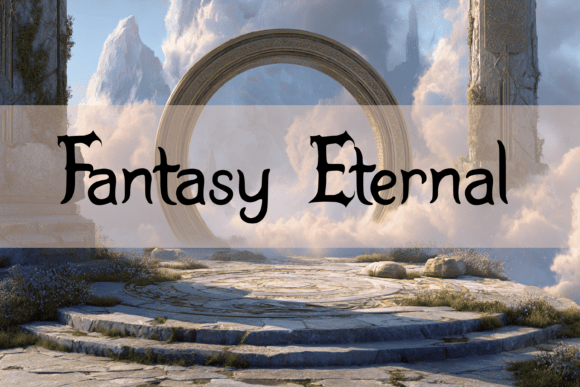
Fantasy Eternal: A Font for the Enchanted and the Elegantly Adventurous
Fantasy Eternal is a font that stands out in the world of typographic design due to its unique ability to evoke the essence of fantasy, adventure, and mystique. Inspired by ancient scripts, mythical legends, and the visual language of enchanted realms, this font captures the imagination with its intricate details and whimsical charm. Whether you're creating content for a fantasy novel cover, designing promotional material for a role-playing game, or crafting merchandise for a themed event, Fantasy Eternal offers an elegant yet dynamic aesthetic.
What Makes Fantasy Eternal Unique?
One of the key features that distinguish Fantasy Eternal from other fonts is its attention to detail in both uppercase and lowercase characters. Each letterform has been meticulously crafted to reflect the artistry of a magical world, blending ornate flourishes with readability. This balance ensures that the font remains visually engaging while still being practical for a variety of uses.
The font also includes a comprehensive set of numerals and punctuation marks, making it versatile enough for both short titles and full-length text. Unlike many decorative fonts that are limited to stylized capital letters, Fantasy Eternal maintains consistency across all character types, allowing for seamless integration into longer compositions such as book chapters, invitations, or branding materials.
Design Philosophy and Aesthetic Appeal
Fantasy Eternal draws inspiration from the visual motifs commonly found in high fantasy literature and media. Its design incorporates subtle curves and elongated strokes that mimic the calligraphy of ancient scrolls, while the spacing between characters enhances legibility without sacrificing the sense of wonder. The result is a typeface that feels both timeless and fresh, suitable for projects that aim to blend tradition with modern appeal.
This font is particularly well-suited for designers who want to create immersive experiences through typography. It adds a layer of narrative depth to any project it’s used on, transforming simple text into a visual story element. For those working in creative industries—such as publishing, gaming, or entertainment—Fantasy Eternal can serve as a powerful tool to reinforce thematic elements and capture audience attention.
Comparing Fantasy Eternal to Other Typographic Options
In the realm of fantasy-themed fonts, there are several alternatives available, each with its own strengths and stylistic nuances. However, few fonts achieve the same level of elegance and versatility as Fantasy Eternal. While some fonts focus heavily on dramatic flair at the expense of usability, others may lean too much toward realism, lacking the fantastical edge needed for certain applications.
- Decorative Fonts: Many decorative fonts used in fantasy contexts prioritize visual impact over functionality. They often feature elaborate ligatures and complex shapes that can hinder readability. Fantasy Eternal avoids these pitfalls by maintaining clarity even in its most detailed forms.
- Script Fonts: Script fonts typically resemble handwriting and are ideal for personal or romantic contexts. While they can be used in fantasy designs, they often lack the structural strength and character diversity of Fantasy Eternal. This makes them less effective for extended text or multi-format use.
- Modern Sans-Serif Fonts: These fonts offer excellent readability but usually don’t carry the thematic weight necessary for fantasy projects. Fantasy Eternal bridges the gap between traditional script aesthetics and contemporary design needs.
Best-Fit Applications
Fantasy Eternal shines in scenarios where visual storytelling is essential. Here are some common use cases where it would be an excellent fit:
- Book Covers: The font's mystical appearance aligns perfectly with fantasy novels, helping to set the tone before a single word is read.
- Game Titles and Branding: Game developers and indie creators looking to emphasize their project's magical or adventurous nature will find Fantasy Eternal highly effective.
- Movie Posters and Trailers: When designing promotional materials for fantasy films or series, this font helps create an immediate emotional connection with potential viewers.
- Merchandise and Invitations: From enchanted t-shirts to spellbinding wedding invites, Fantasy Eternal brings a sense of grandeur and enchantment to printed goods.
Strengths and Tradeoffs of Using Fantasy Eternal
Like any specialized font, Fantasy Eternal comes with its own set of advantages and limitations. Understanding these can help you decide whether it’s the right choice for your next project.
Strengths
- Elegant and Detailed: The font's design is rich in texture and form, making it visually appealing without overwhelming the viewer.
- High Thematic Relevance: Perfect for projects rooted in fantasy genres, it helps establish a consistent visual identity.
If you're looking for a font that embodies the spirit of fantasy without compromising on quality and usability, Fantasy Eternal is definitely worth considering. Explore how it fits into your workflow and see if it can become a cornerstone of your creative expression.